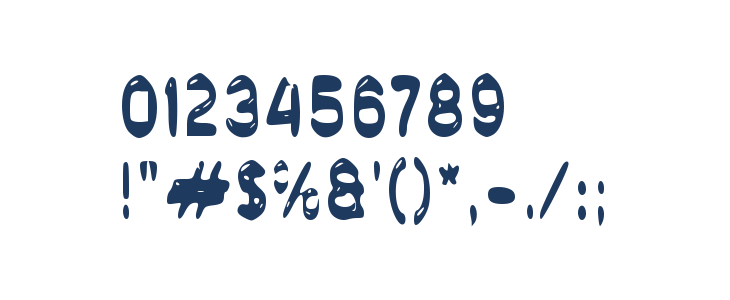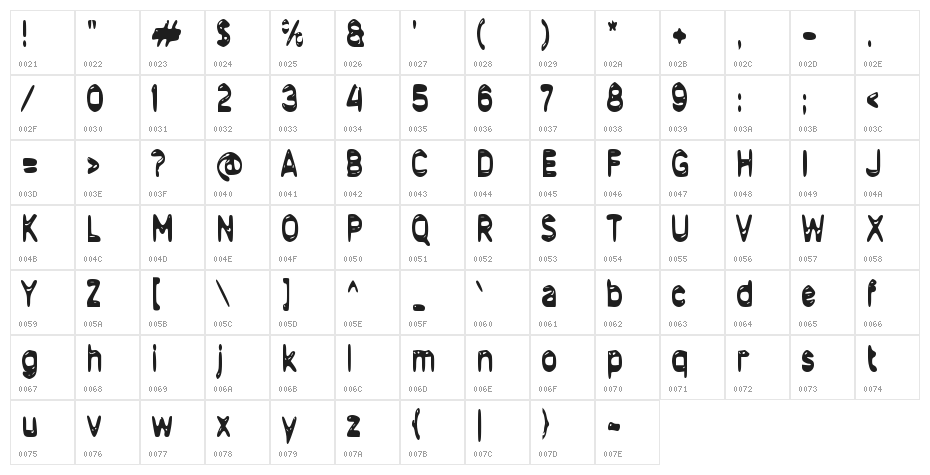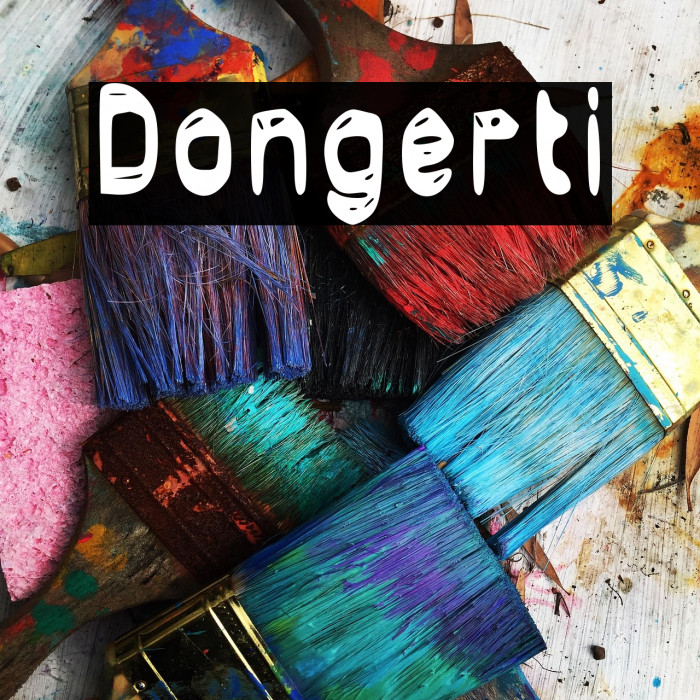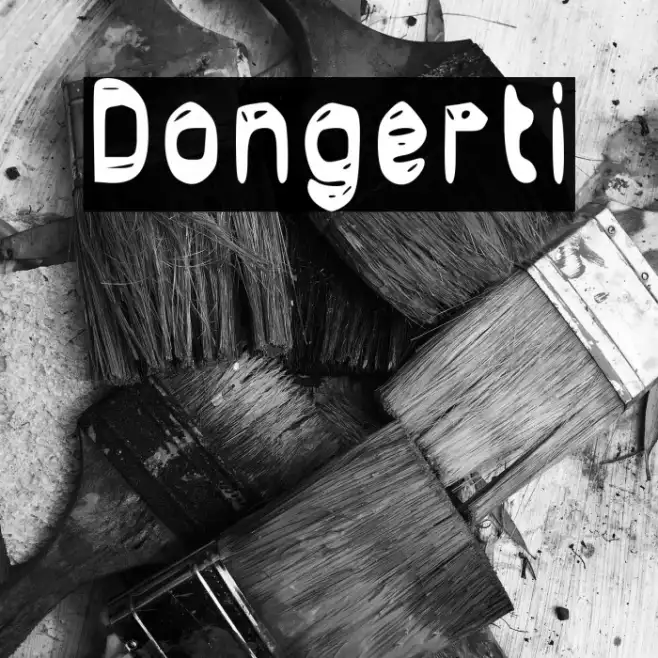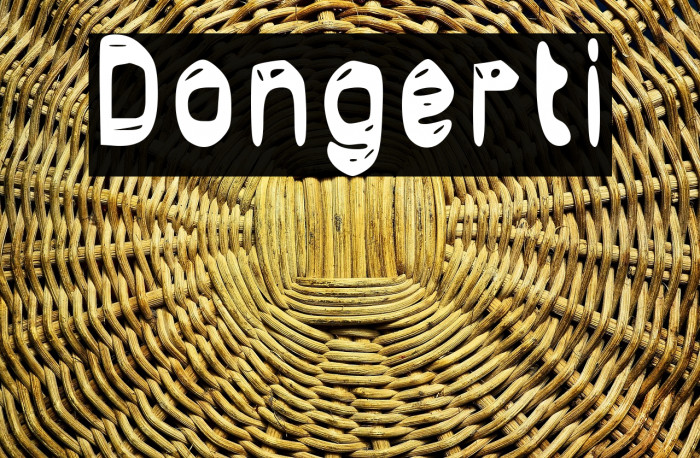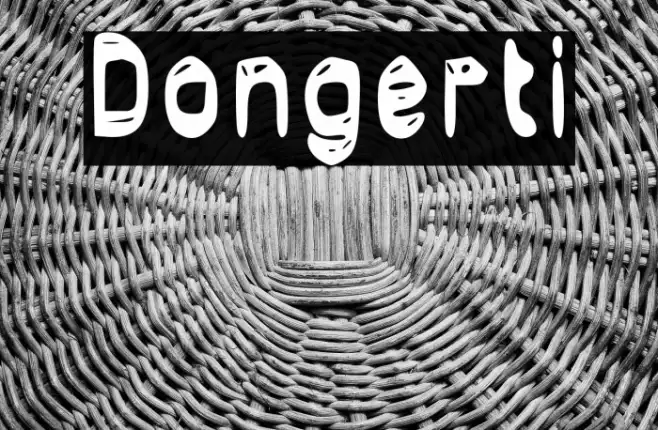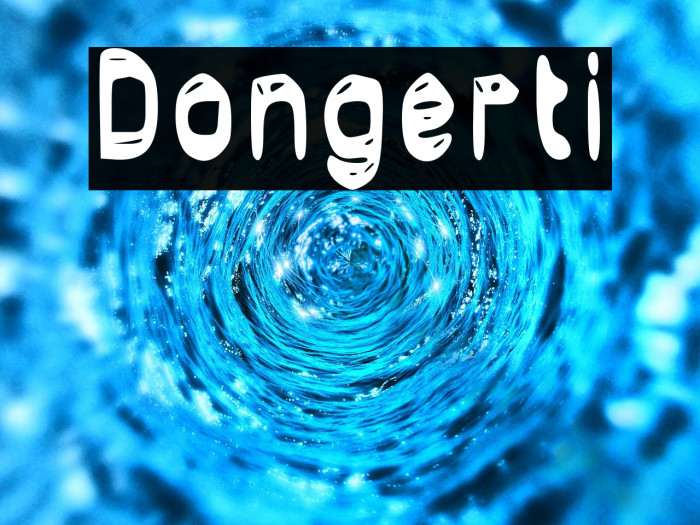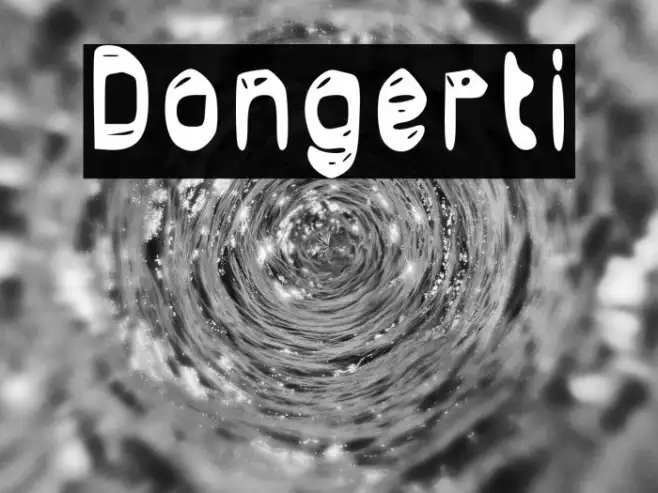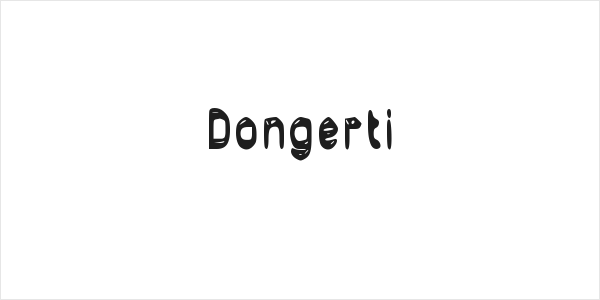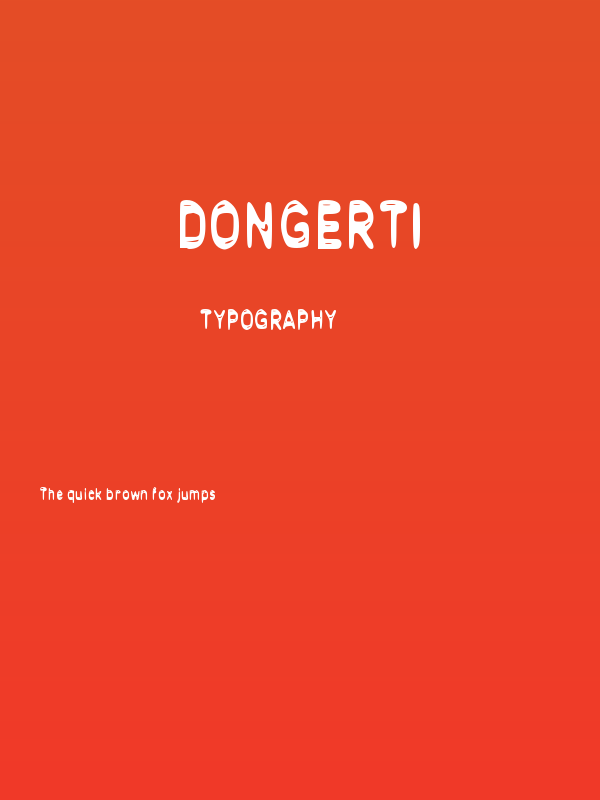
Dongerti Font
Dongerti Description
This font features a playful and quirky design, characterized by its bold and irregular shapes. Each letter has a unique, hand-drawn appearance with uneven edges and varying thickness, giving it a whimsical and artistic feel. The characters are slightly rounded, adding to the friendly and approachable style. The font includes a full set of uppercase and lowercase letters, numbers, and a variety of special characters, making it versatile for creative projects. Its distinctive style is perfect for capturing attention and adding a fun element to any design.
| Overall Style | Whimsical, Artistic |
| Proposed Projects | Ideal for children's books, playful branding, creative posters, and artistic invitations. |